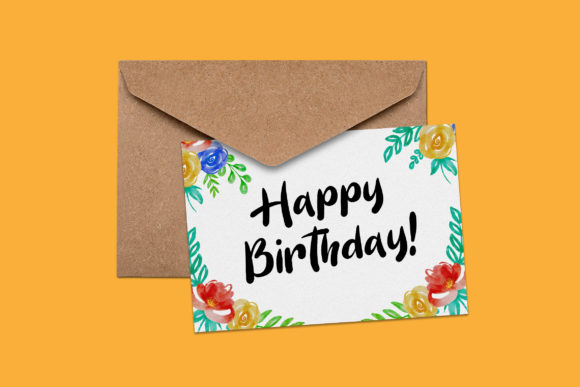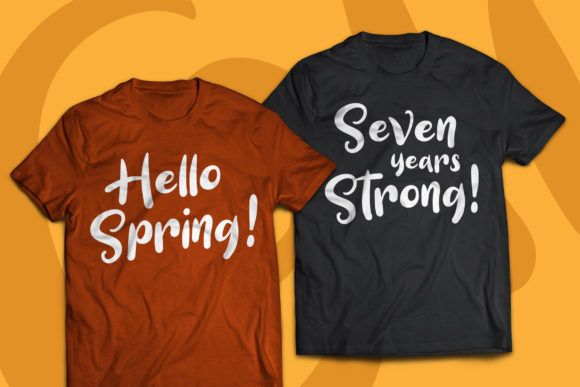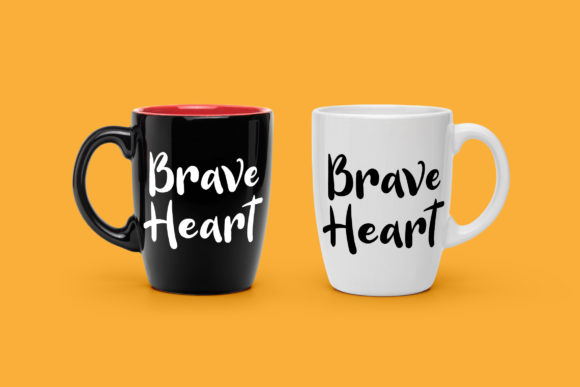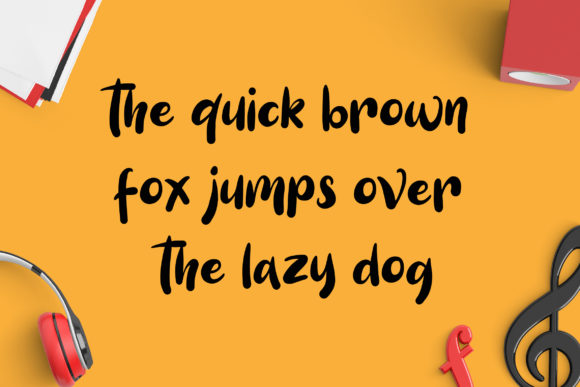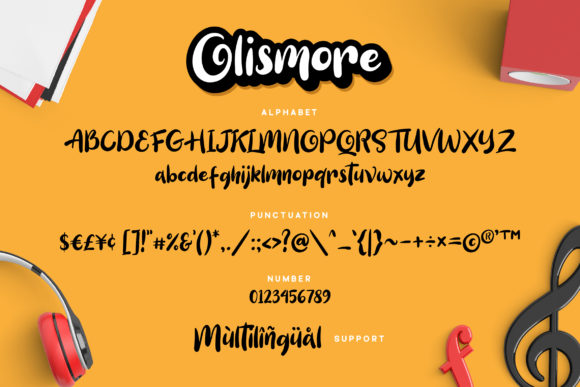
Introduction to Olismore Font
Have you ever been working on a creative project, pouring your heart and soul into every detail, only to realize that the perfect font is missing? This is exactly what happened to many designers when they stumbled upon the Olismore Font, a unique hand-drawn masterpiece that has revolutionized the world of typography.
With its expressive and elegant feel, the Olismore Font is a game-changer for any design project. Whether you’re creating a brand identity, packaging, or simply need a high-quality font for your next design resource, this font is sure to impress. And the best part? The Olismore Font is available for free download, making it a valuable addition to any designer’s toolkit.
Key Features of Olismore Font
- High-quality, elegant design perfect for creative projects and design resources.
- Unique, handwritten style adds a touch of personality to any creative project.
- Perfect for use in a variety of design contexts, including branding, marketing materials, and digital art.
Honest Review: Olismore Font
As a designer, I’m always on the lookout for high-quality design resources to elevate my creative projects. Recently, I had the chance to try out the Olismore Font, and I must say it’s a gem.
- Unique aesthetic: Olismore Font has a distinct, elegant feel that’s perfect for adding a touch of sophistication to your designs.
- High-quality glyphs: The font’s glyphs are crisp, clear, and well-crafted, making it a great choice for both digital and print projects.
- Limited language support: As a free font, Olismore may not support as many languages as some other paid options.
- Transparent background limitations: Depending on your design software, you may encounter issues with transparent backgrounds when using Olismore.
Overall, I’m impressed with the Olismore Font. While it may have some limitations, its unique aesthetic and high-quality glyphs make it a valuable addition to any designer’s toolkit. Whether you’re working on a creative project or just need a reliable design resource, Olismore is definitely worth checking out.
Tips for Getting the Most Out of Olismore Font
Experiment with different font sizes and styles to create a visually appealing design. Use the Olismore Font in conjunction with other design elements, such as images or graphics, to create a cohesive look.
The Olismore Font is suitable for a wide range of creative projects, including logos, social media graphics, posters, brochures, presentations, and documents. Its high-quality design and transparent background make it a versatile design resource for any project.